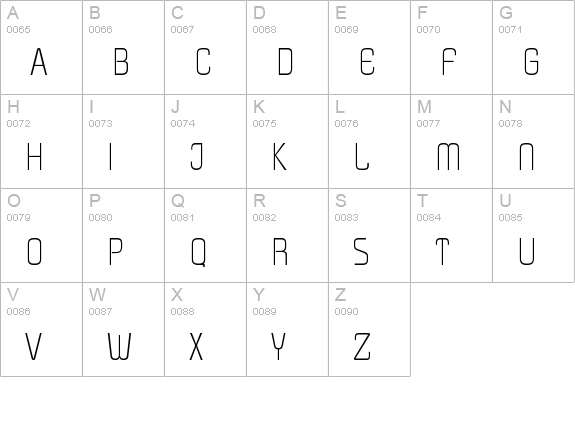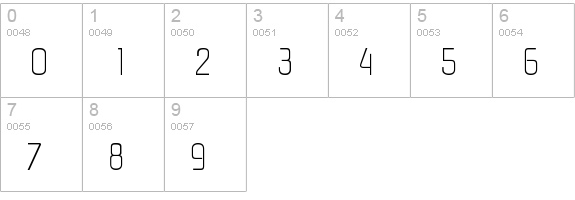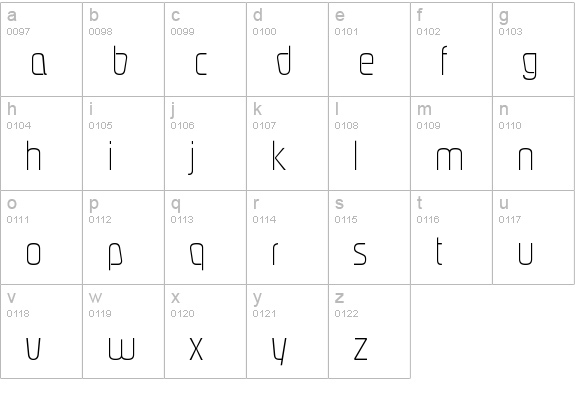
PasadenaEF-ExtraLight is an airy, ultra-refined variant in the PasadenaEF typeface family \xE2\x80\x94 well suited to minimalist headlines and refined display use.
PasadenaEF-ExtraLight is a stunningly elegant font that exudes a sense of sophistication and grace. It is the perfect choice for those seeking a delicate and refined touch in their designs. With its slender letterforms and subtle curves, PasadenaEF-ExtraLight effortlessly captures attention while maintaining an air of understated beauty. This font is versatile and adaptable, making it suitable for a wide range of design projects. Whether you are creating a logo, designing a website, or crafting a wedding invitation, PasadenaEF-ExtraLight will add a touch of elegance and professionalism to your work. What sets PasadenaEF-ExtraLight apart is not only its exceptional design, but also its accessibility. This font is available for free download at FontsMarket.com, allowing designers and creatives to freely explore its beauty and incorporate it into their projects without any limitations. Now, everyone can enjoy the beauty of PasadenaEF-ExtraLight and elevate their designs with its timeless charm. With its generous x-height and meticulously crafted letterforms, PasadenaEF-ExtraLight ensures excellent legibility even at smaller sizes, making it a fantastic choice for both print and digital mediums. Its thin strokes and crisp lines create a sense of lightness and delicacy, adding a touch of sophistication to any layout. Whether used for headlines, body text, or even in combination with other complementary fonts, PasadenaEF-ExtraLight effortlessly commands attention and creates a visually pleasing aesthetic. Its versatility and timeless appeal make it a must-have font for designers who value both style and substance. In conclusion, PasadenaEF-ExtraLight is a stunning font that combines elegance, versatility, and accessibility. Its free availability for download at FontsMarket.com allows designers to unleash their creativity and seamlessly integrate this font into their projects. With PasadenaEF-ExtraLight, your designs will exude sophistication and grace, leaving a lasting impression on your audience.